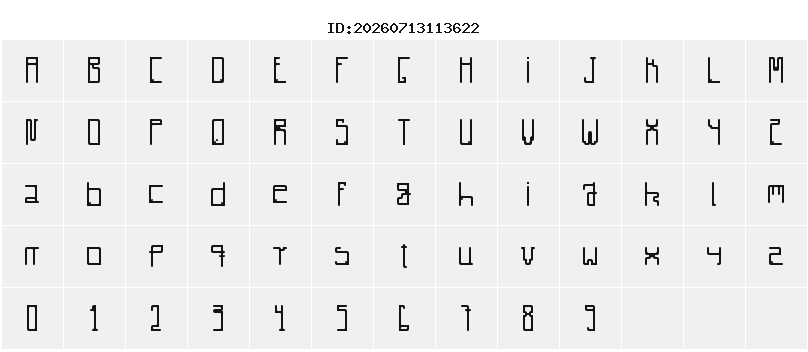
• Font Name: Radiare
• Full Font Name: Radiare
• Designer: delfinah
• Manufacturer: Delfinah
• Description: Radiare was built with FontStruct
About Radiare.ttf
Radiare.ttf is a modern, elegant sans-serif font designed for ultimate readability and visual harmony. Perfect for branding, headlines, web design, and print materials.